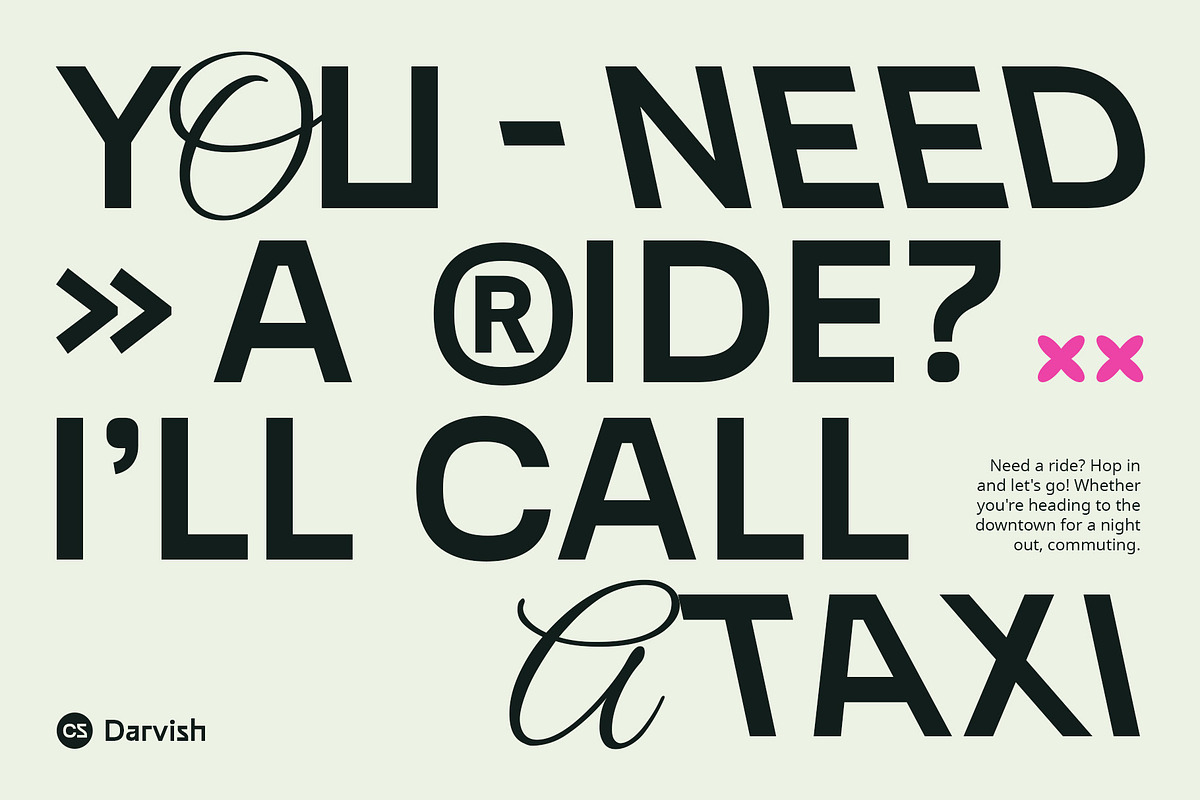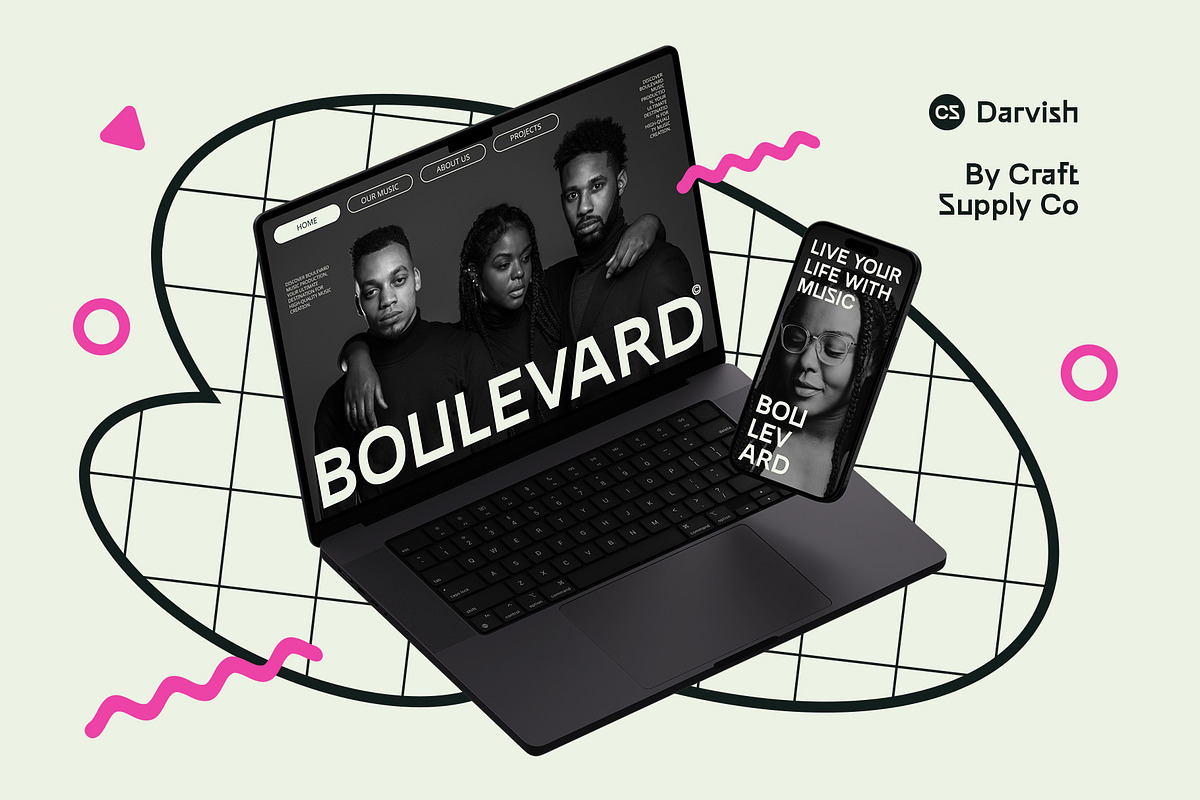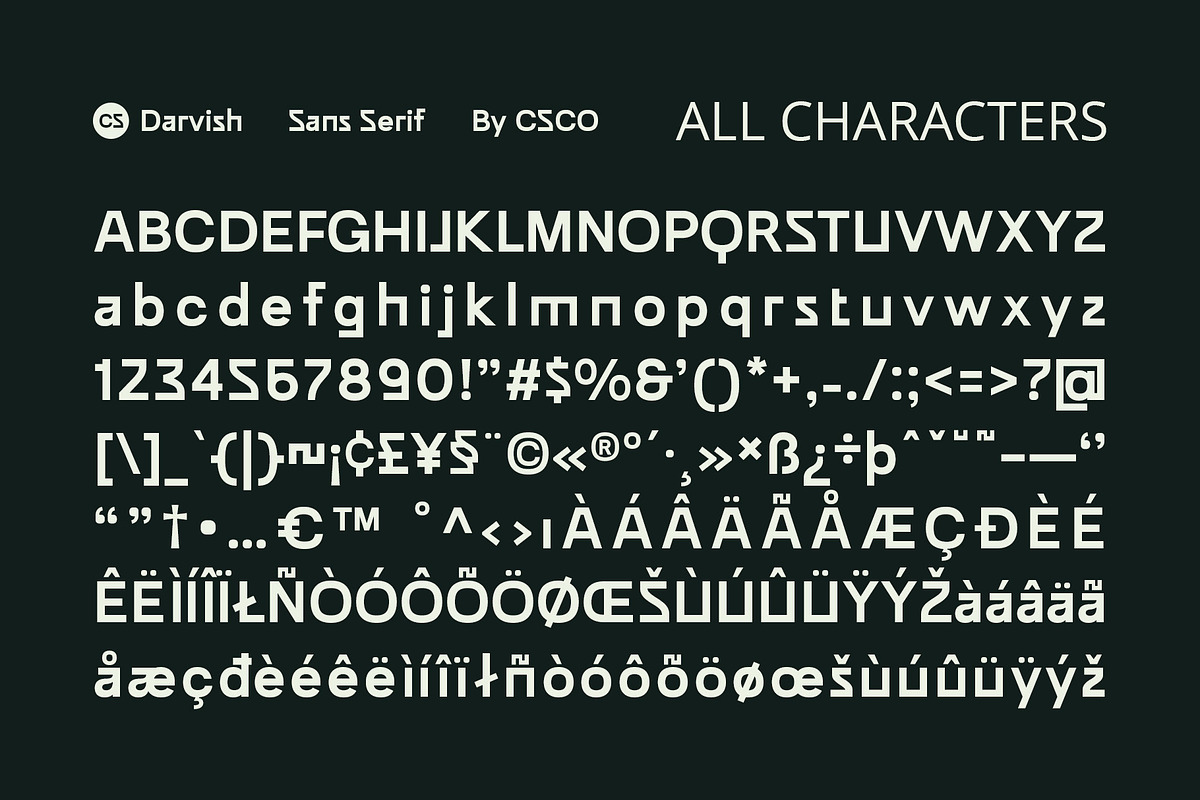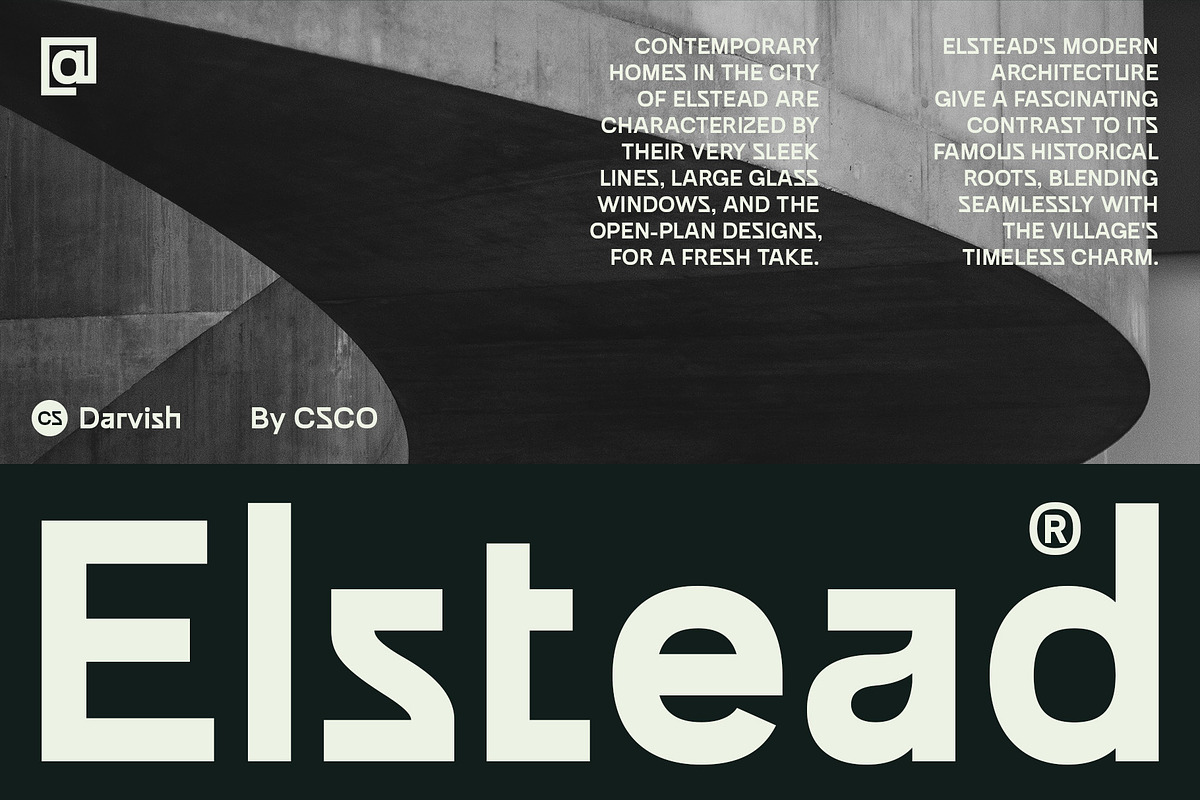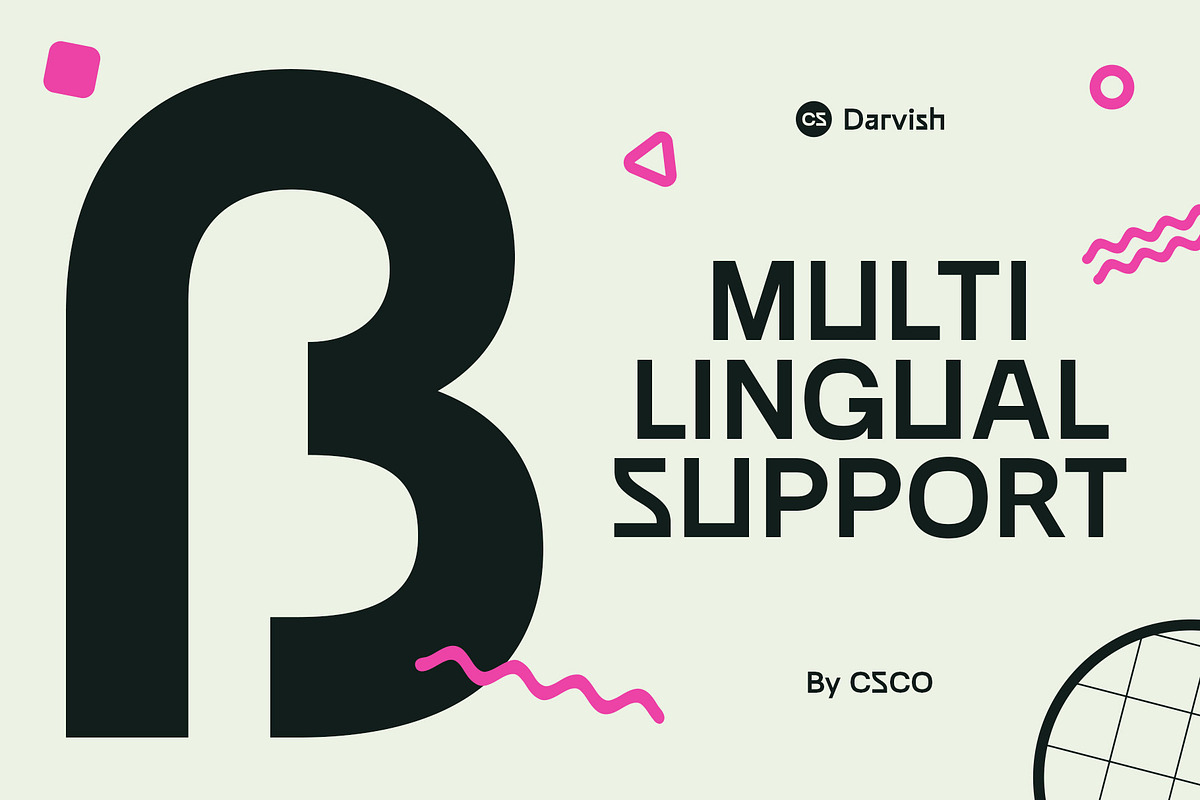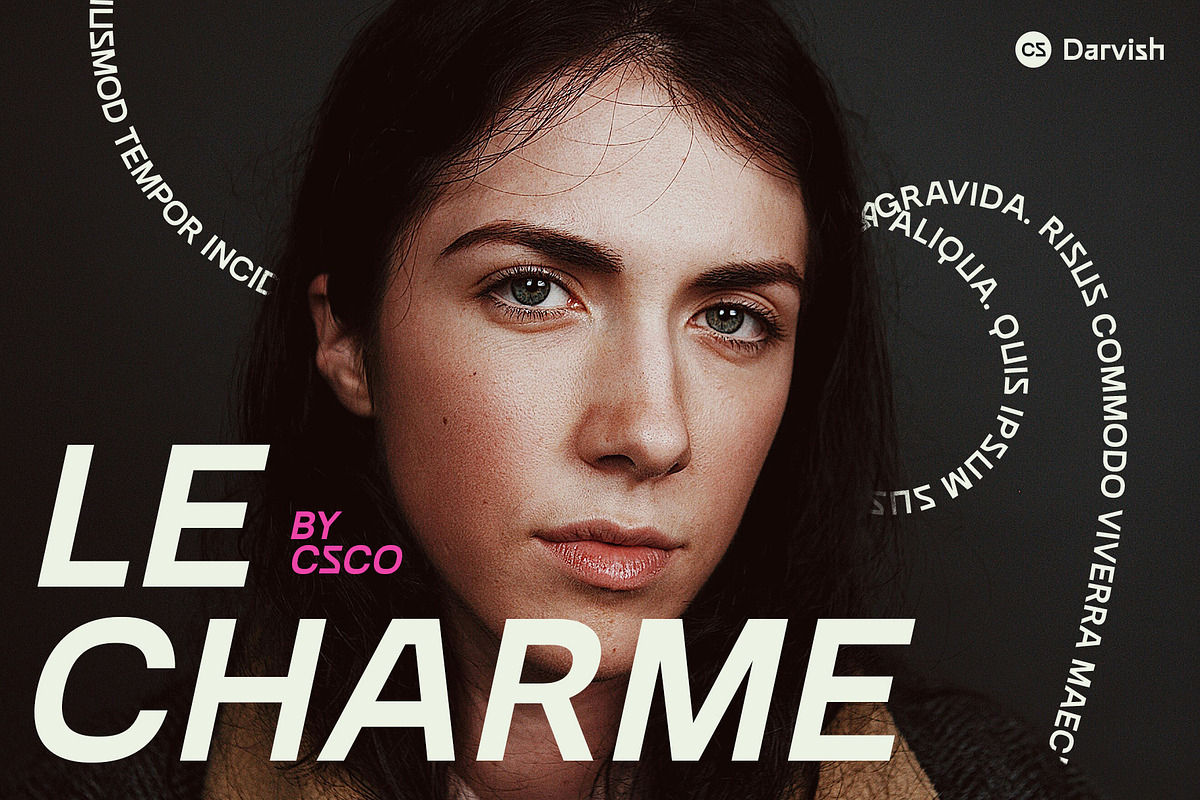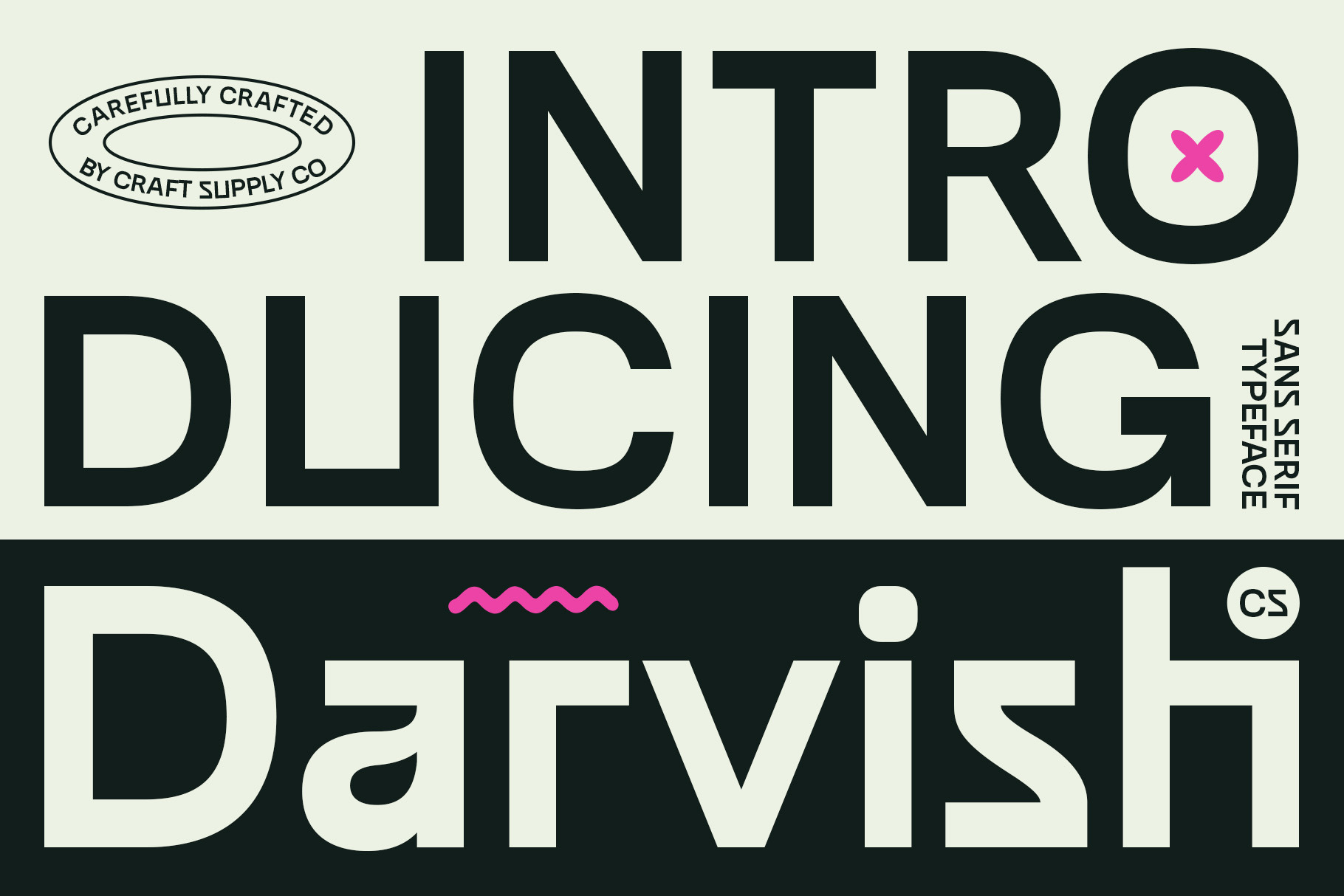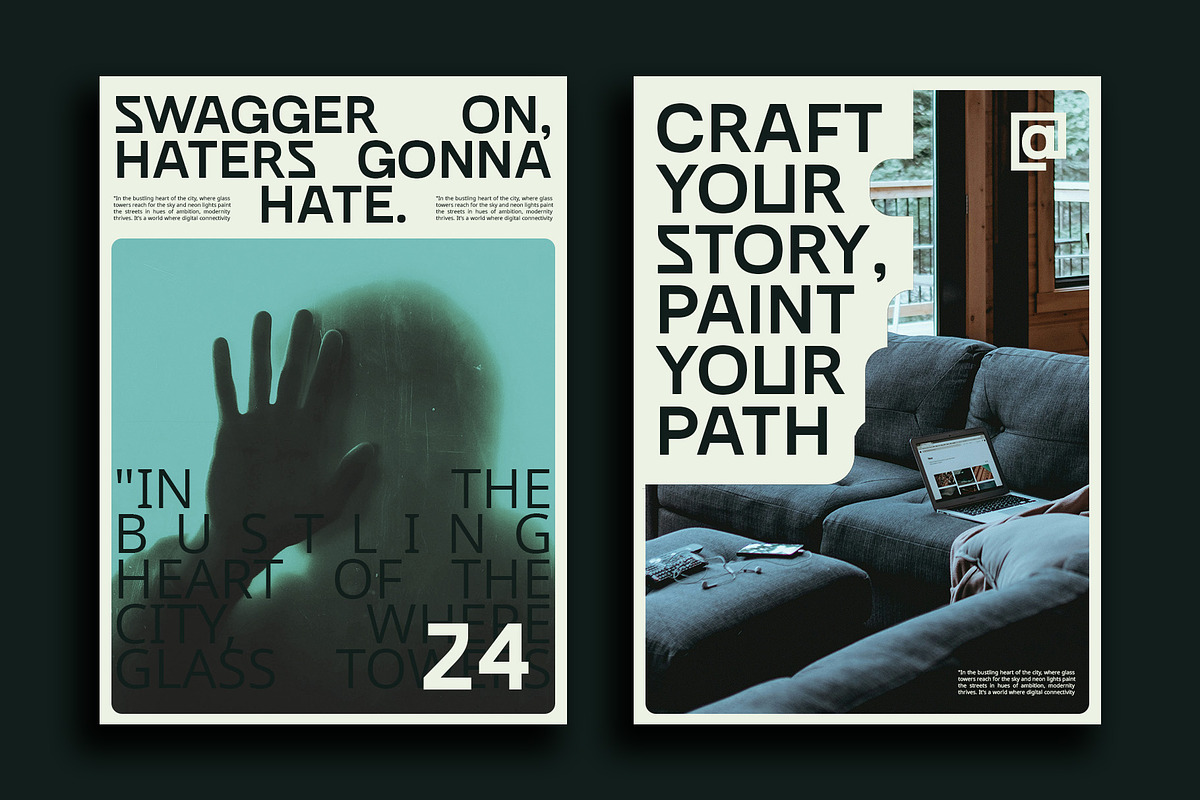
CS Darvish – Sans Serif Typeface
CS Darvish – Sans Serif Typeface: Where Modernity Meets Professionalism
Modern Sans Serif Font
CS Darvish is a modern sans serif font designed for corporate environments, featuring a clean, tidy, and easy-to-read design. Engineered for optimal readability across various media, this font prioritizes elegant simplicity, making it ideal for official documents, presentations, and corporate brand identities.
Emphasis on Readability
With consistent letter proportions and a minimalistic appearance, CS Darvish ensures clear and legible text in all applications. Its streamlined design conveys a modern and professional impression, enhancing the visual appeal of corporate communications.
Versatile Application
CS Darvish is versatile and suitable for a variety of corporate design applications, including branding, publications, web content, and more. Whether used in digital or print media, its modern aesthetic and readability make it a reliable choice for conveying a professional image.
Perfect for Corporate Design
Ideal for corporate environments seeking a contemporary and polished look, this CS font blends functionality with style, ensuring that your communications are both effective and visually appealing.
- CS Darvish Regular
- CS Darvish Italic
- CS Darvish ReverseItalic